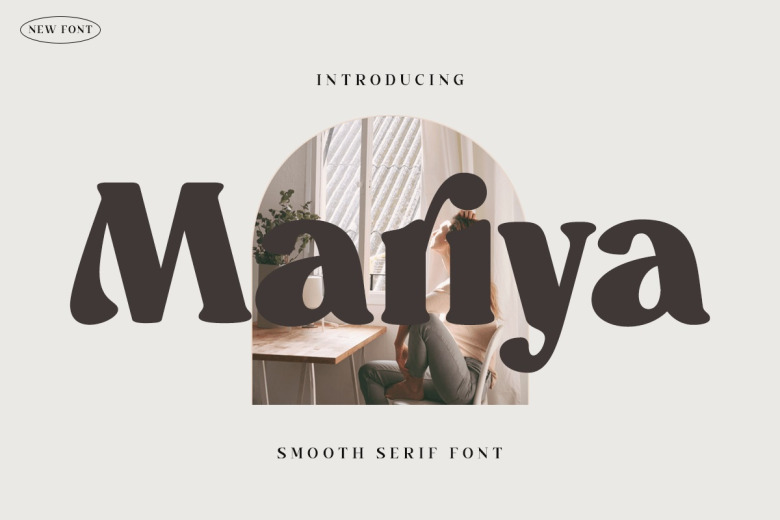
Mariya Font
Mariya is a bold, serif font. With its natural serif vintage style this font is perfect for magazine cover, poster designs and movie titles. Also great for advertising media, vlogs, clothing brand, wedding card or simply use it in your social media post:) PUA encoded, this means the font can be accessed by everyone and all of its glyphs will appear without issue.
Mariya Serif Font